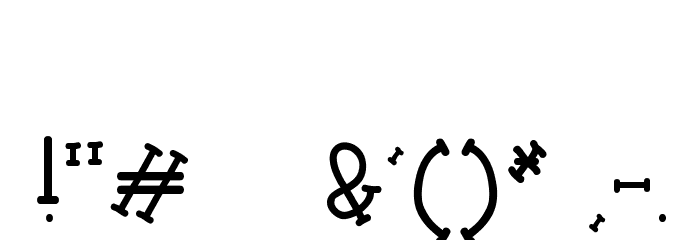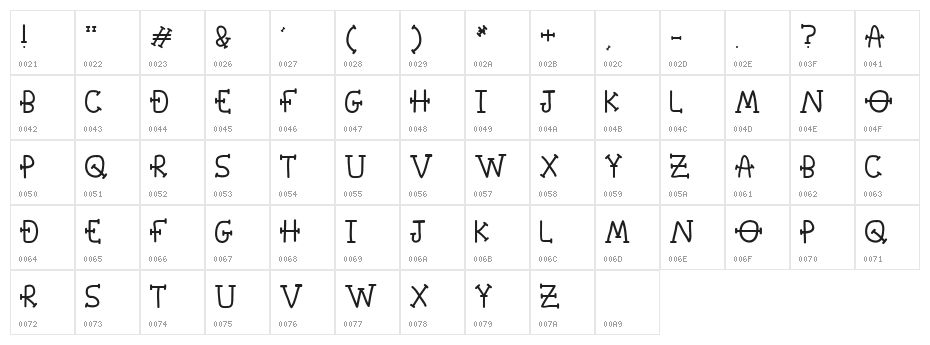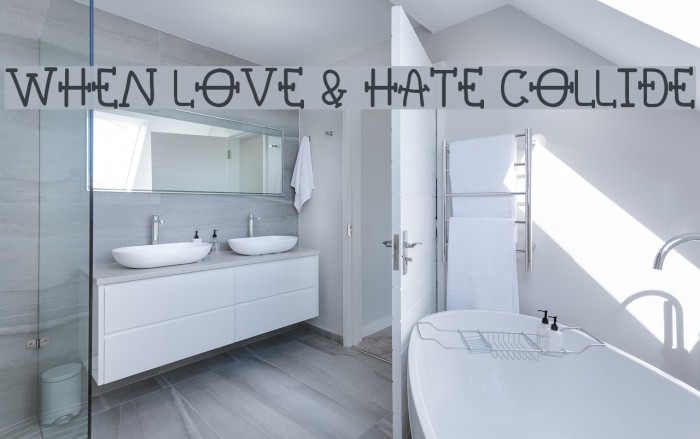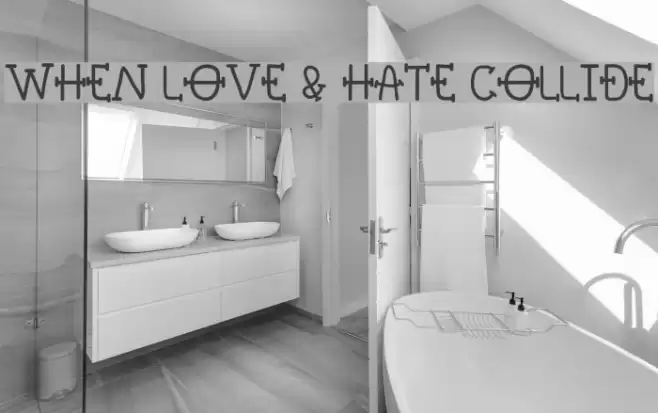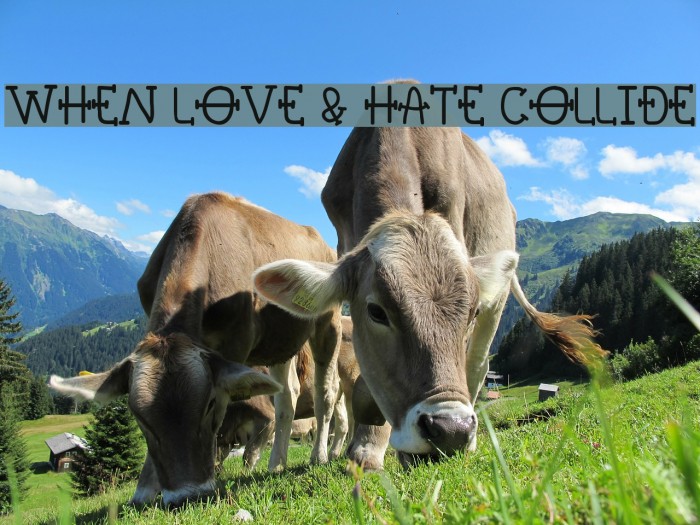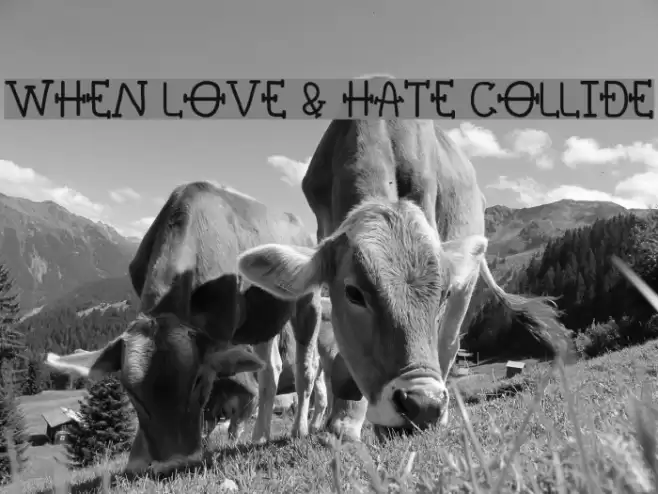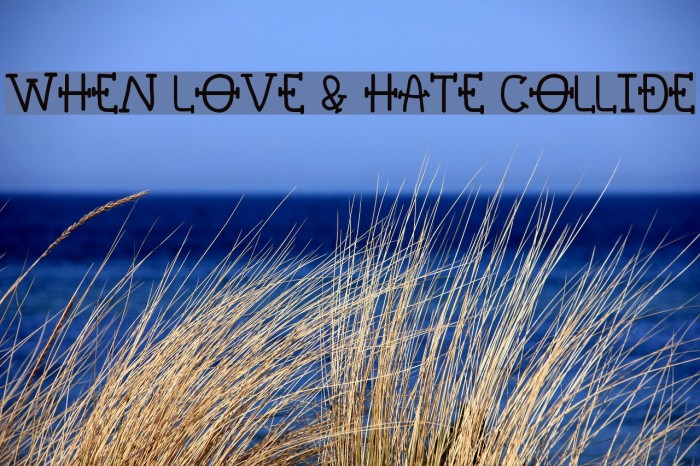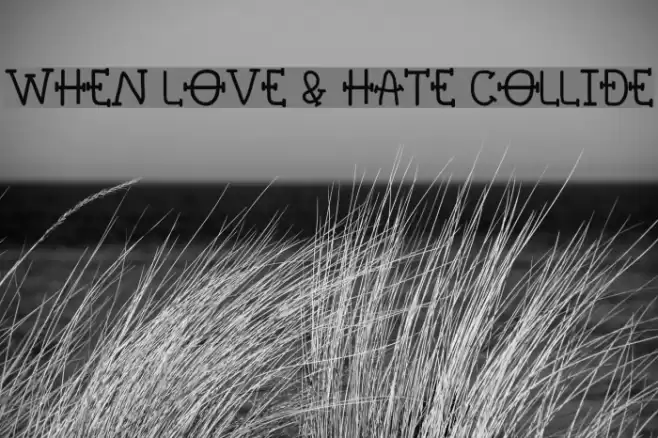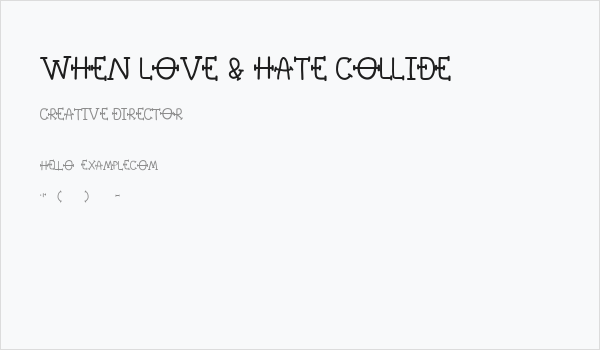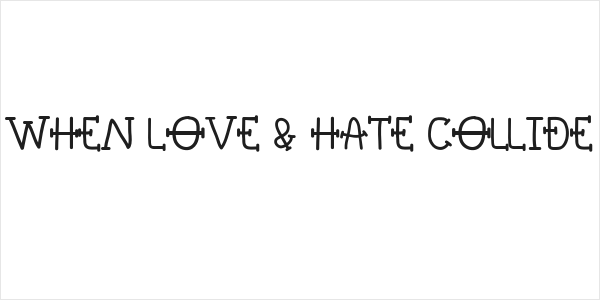
When Love & Hate Collide Font
When Love & Hate Collide Description
This font features a unique and playful design, characterized by its decorative elements that resemble mechanical or industrial motifs. Each letter is adorned with circular and linear embellishments, giving it a distinct and quirky appearance. The strokes are consistent in width, providing a uniform look across all characters. The font maintains a balance between readability and artistic flair, making it suitable for creative and eye-catching designs. Its bold presence and distinctive style make it stand out, while the consistent spacing ensures clarity and legibility.
| Proposed Projects | Ideal for creative projects such as posters, album covers, branding for tech or industrial-themed products, and unique invitations. |